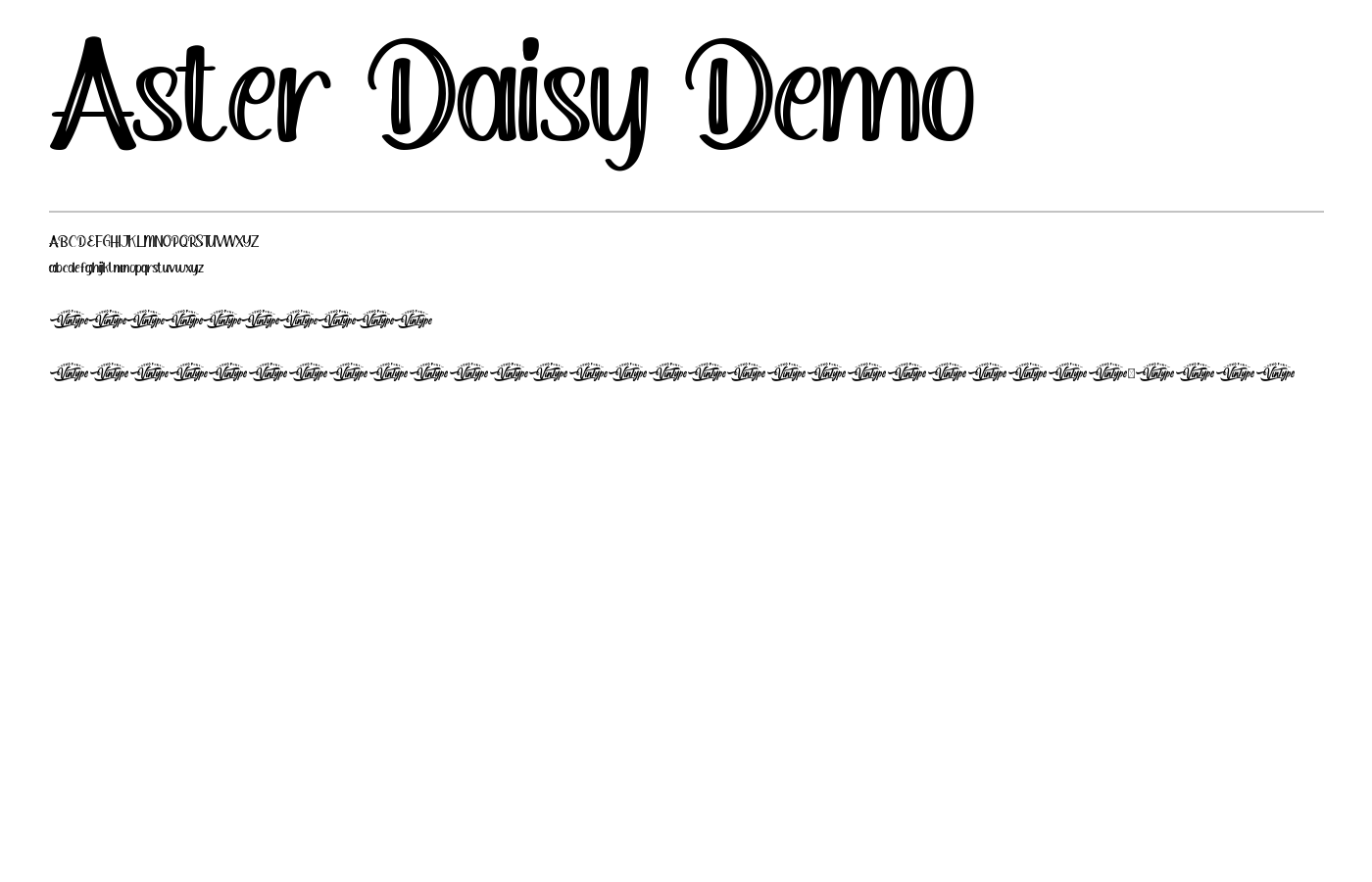
Aster Daisy Demo is a playful and charming handwritten-style font featuring tall, narrow letterforms with smooth, rounded strokes and gentle contrasts. Its distinctive, slightly quirky character shapes bring a friendly and informal vibe, making it ideal for creative projects, invitations, and branding that seeks a warm, approachable personality. This font works best in headings and decorative text where its unique style can shine and add a touch of whimsy.
Aster Daisy Demo Font
About Aster Daisy Demo Font